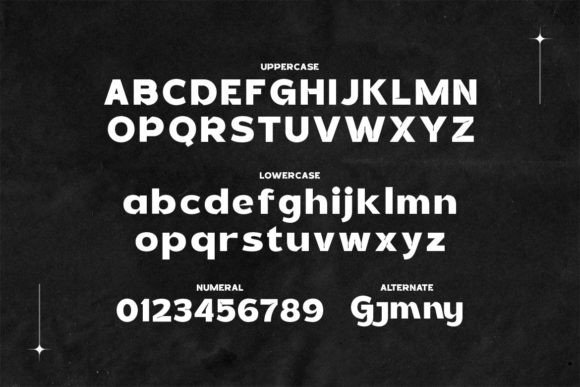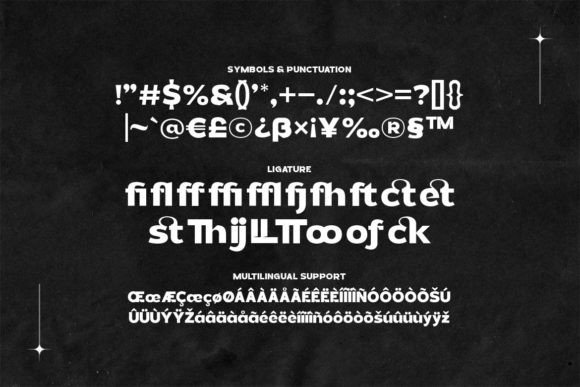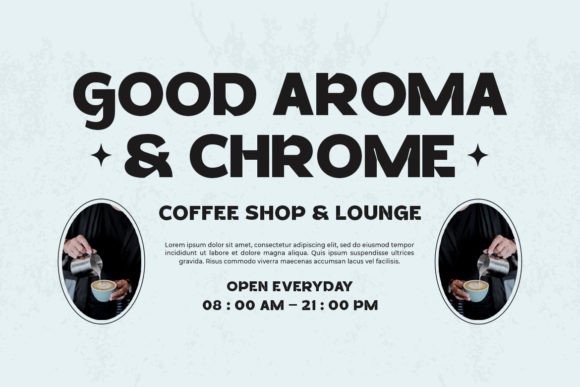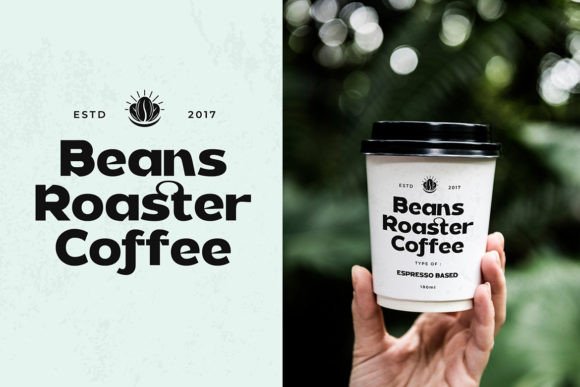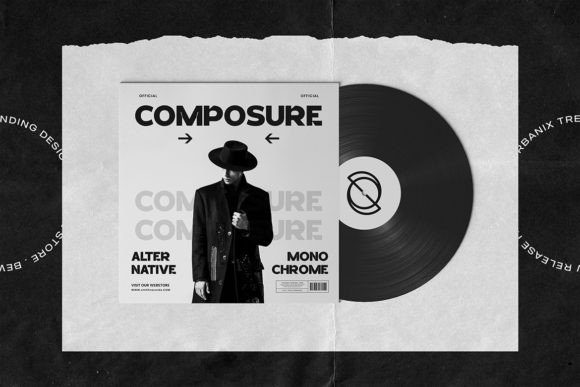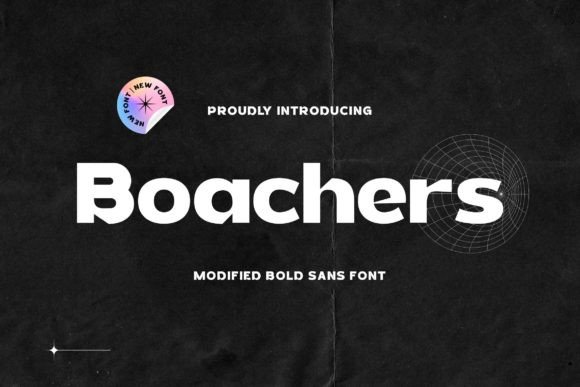
Introducing Boachers Font: The Bold and Modern Sans-Serif to Elevate Your Designs
I’ll never forget the struggle I faced while working on a branding project for a new coffee shop. My client wanted a bold, eye-catching font that would stand out on their packaging and advertising materials. I scoured the internet for the perfect font, but nothing seemed to fit the bill. That was until I stumbled upon Boachers – a modified bold sans font that instantly caught my attention. In this article, I’ll share my experience with Boachers, its features, and how you can make the most of this amazing font in your designs.
What Makes Boachers Special?
Boachers is a versatile font that features a clean and modern design, perfect for projects that require a strong and bold aesthetic. Its bold and eye-catching design makes it a great choice for designs that need to make a statement. Whether you’re working on branding, advertising, packaging, logos, or more, Boachers is an excellent choice.
My Honest Review of Boachers
Here’s what I love about Boachers:
- ✨ Clean and modern design: Boachers has a sleek and contemporary look that’s perfect for modern designs.
- ✅ Highly versatile: This font can be used for a wide range of projects, from branding to advertising and packaging.
- 💥 Attention-grabbing: Boachers is designed to make a statement, making it perfect for designs that need to stand out.
However, I did notice a few quirks:
- 🤔 Limited use in body text: Due to its bold design, Boachers may not be the best choice for body text, especially for longer paragraphs.
- ⚠️ Some kerning issues: As with any font, there may be some kerning issues, especially when using certain character combinations.
The Story Behind Boachers
Boachers was designed by a team of typographers who aimed to create a bold and modern sans-serif font that would meet the needs of designers and creatives. Inspired by the urban landscape and modern architecture, Boachers is a font that embodies confidence and sophistication.
| Font Name | Boachers Font |
| Author | TypeFactory |
| What is Boachers font? | Boachers is a modified bold sans font designed for modern designs that require a strong and bold aesthetic. |
| Is Boachers suitable for body text? | No, Boachers is best used for headings and titles. Its bold design may not be suitable for longer paragraphs. |
| Does Boachers support OpenType features? | Yes, Boachers supports OpenType features, including stylistic alternates and glyphs. |